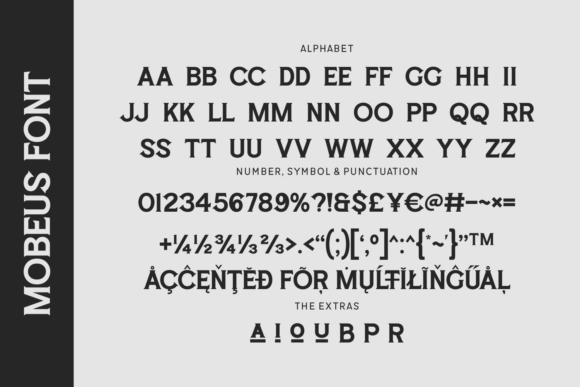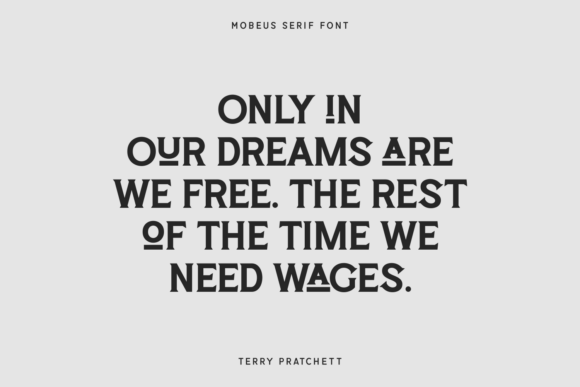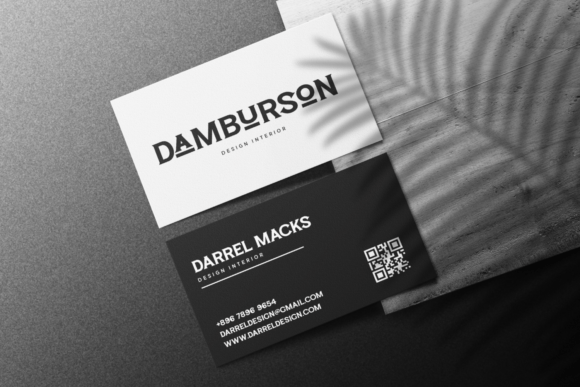
Introduction to Mobeus Font
Mobeus is a modern serif font with a clean, elegant look.
Its letters have smooth curves and sharp edges, giving it a stylish and professional feel Perfect for branding, headlines, and designs that need a touch of sophistication, Mobeus combines classic serif details with a fresh, contemporary style.
Key Features of Mobeus Font
Why Choose Mobeus Font?